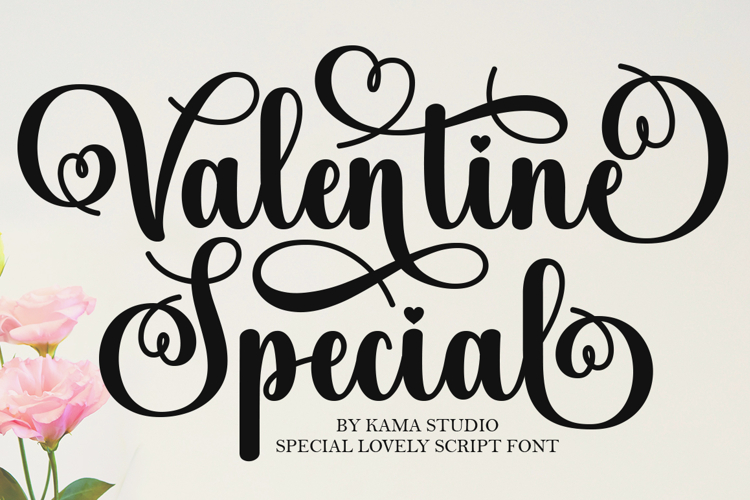
Introducing ‘Valentine Special’, a charming and adaptable handwritten font that oozes sweetness in every stroke. Embellished with a warm, romantic vibe and a lively spirit, it’s aptly named to bring a touch of amore to your design ventures.
From the initial sketch to the finishing touch, ‘Valentine Special’ is poised to transform your creative visions into genuine masterpieces. The font is PUA encoded, ensuring seamless access to all its stunning glyphs and stylish swashes.
Let ‘Valentine Special’ amplify your designs with its endearing and artistic allure.